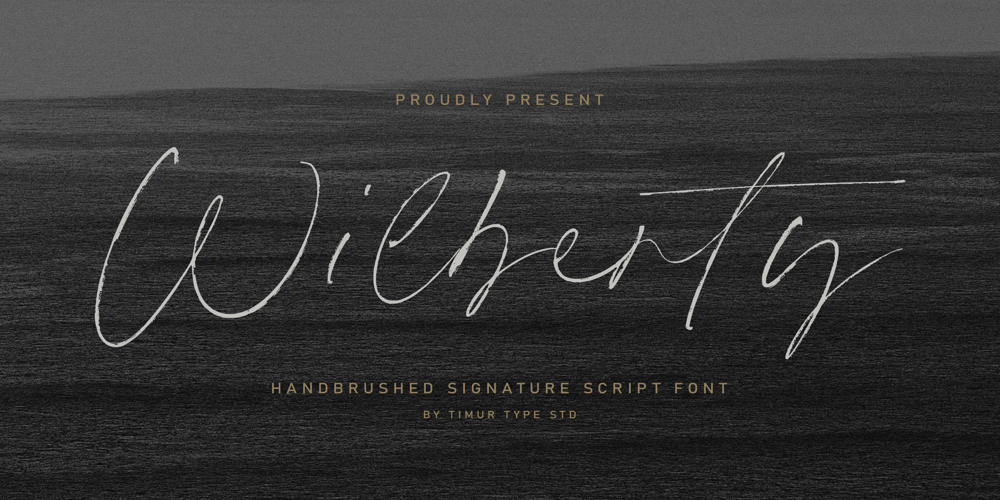
Wilberty Font Family was designed by Wara Sigit Tri Pamungkas and published by Timurtype. Wilberty contains 1 styles and family package options. Introduced by Timurtype Studio!Wilberty is a Handbrushed Signature Script Font This font embrace the artistry of handwritten elegance with our handbrushed signature script font, where every stroke tells a story of timeless sophistication and personal style. Redefine your brand with a touch of bespoke authenticityWilberty font is perfect for product packaging, branding project, megazine, social media, wedding, or just used to express words above the background.Wilberty Font also supports multilingualism.Enhance your designs with our original fonts, feel free to comment or provide feedback, Enjoy the fonts 😊Thank You